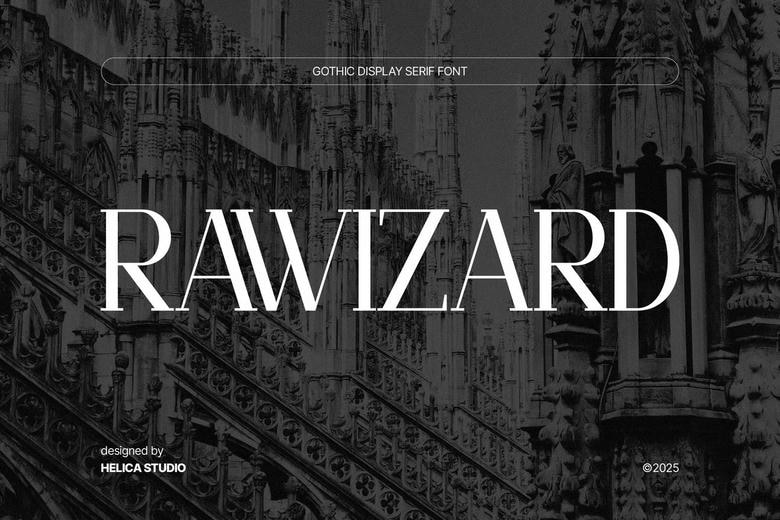
Rawizard Font
Rawizard is a serif typeface that does not leave a Modern Gothic at all. Rawizard is a high contrast very high contrast type serif that are both grace and perfect in the usage as a headline usage, branding, posters or any editorial they should be used in form of more dramatic and classic style.
Appropriate to: Branding: Luxury brand companies, old or traditional-based companies, fashion (Luxury), law firms. Cover of books (and fantasy or historical fiction or drama in particular ), movie titles, headlines of editorials, magazine layouts.
Packaging: The packaging of commodities of high end wanted to convey the feel of sophistication and fineness. Logos: Them are quite recommendable in cases, where a brand requires classical, muscular and elite image. Architecture/Real Estate: A project of real estate sites or architectures of the premium level.